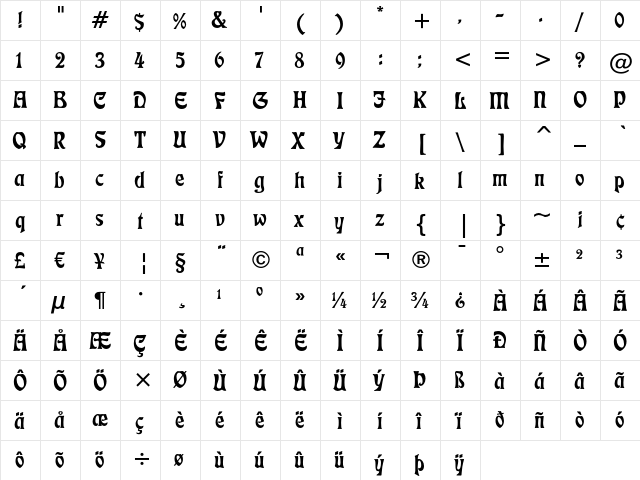
Freeform 710 Regular
Design Context for Freeform 710 Typeface
Freeform 710 takes a measured approach to typography — its balanced proportions and neutral character make it a reliable workhorse for both digital and print work.